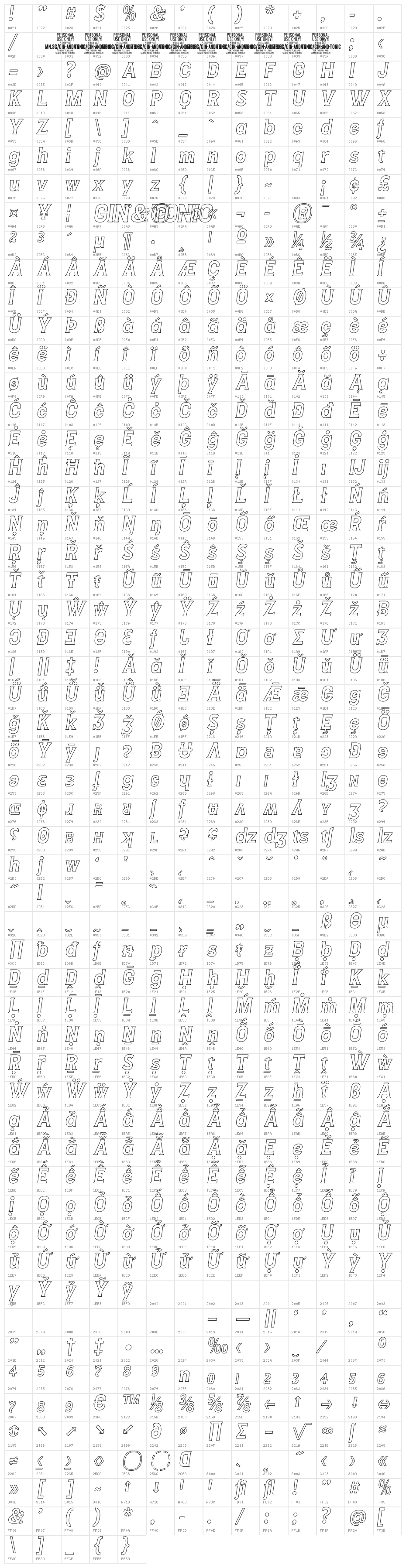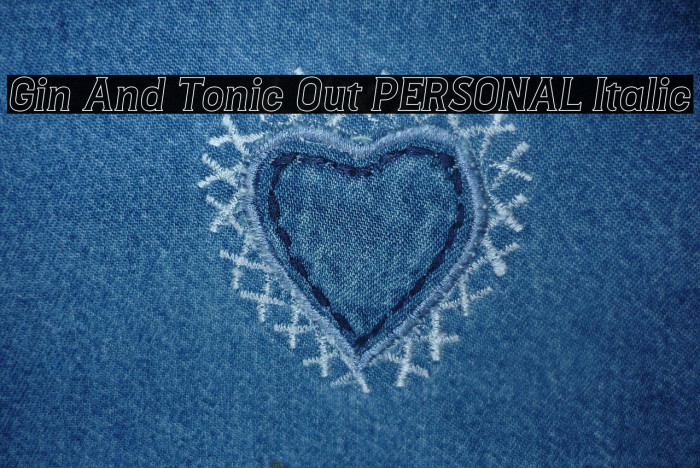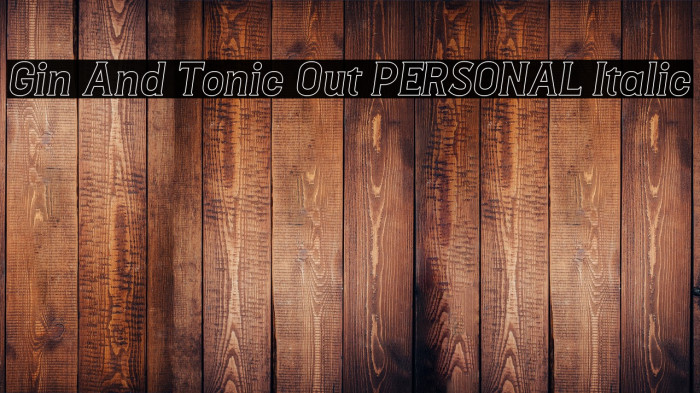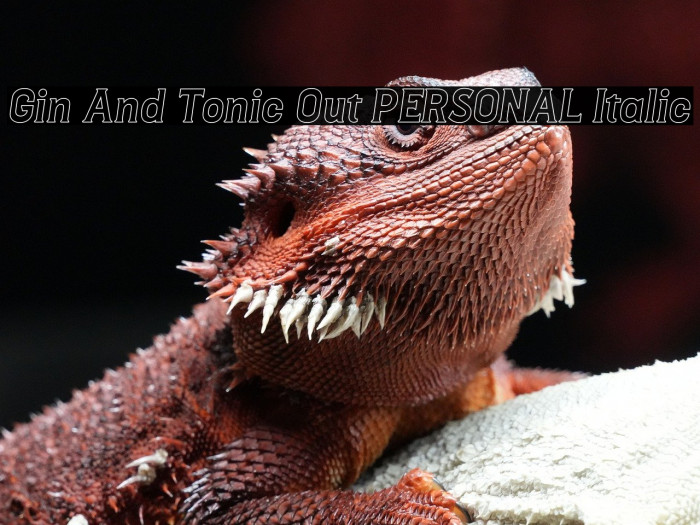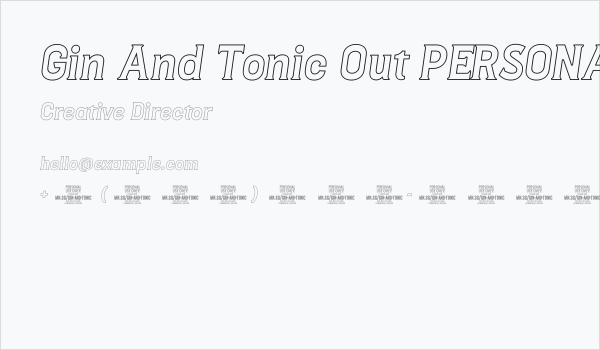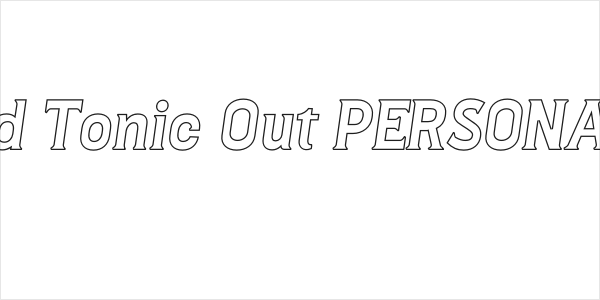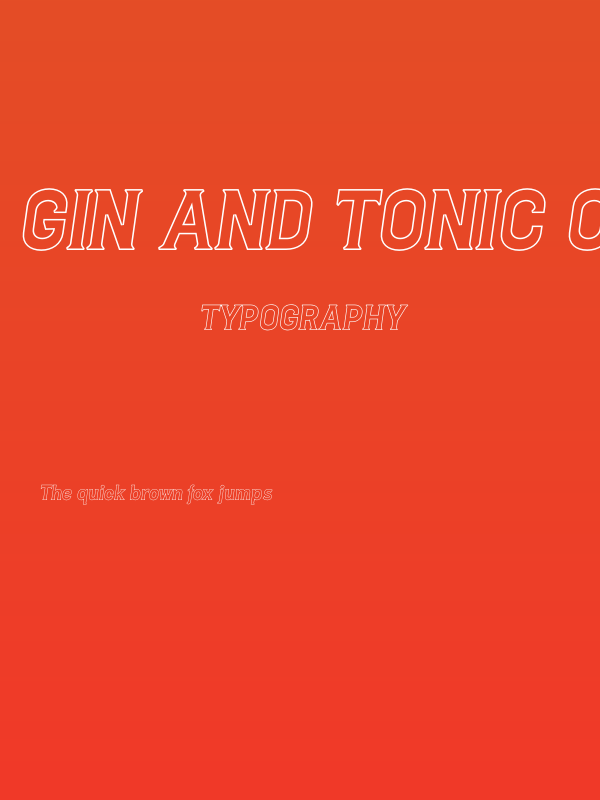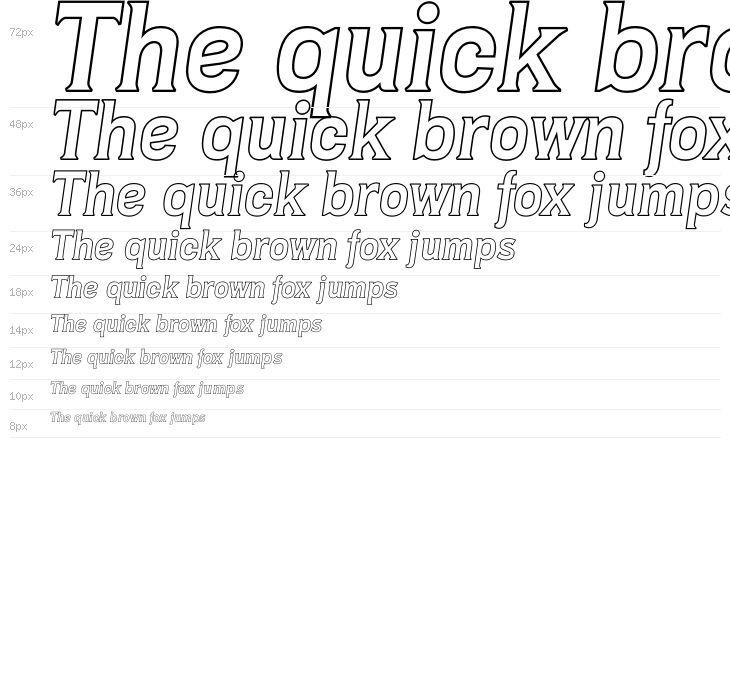
Gin And Tonic Out PERSONAL Italic Font
Gin And Tonic Out PERSONAL Italic Description
This font features a bold, outlined style with a distinct italic slant, giving it a dynamic and modern appearance. The uppercase and lowercase letters maintain a consistent structure, with clean lines and a uniform stroke width. The characters are well-spaced, ensuring readability while maintaining a stylish flair. The numerals and special characters are designed to complement the alphabet, providing a cohesive look across all elements. This font's unique outline and italicized form make it stand out, suitable for projects that require a touch of elegance and modernity.
| Proposed Projects | Ideal for branding, headlines, posters, and any design project that requires a bold and modern aesthetic. |